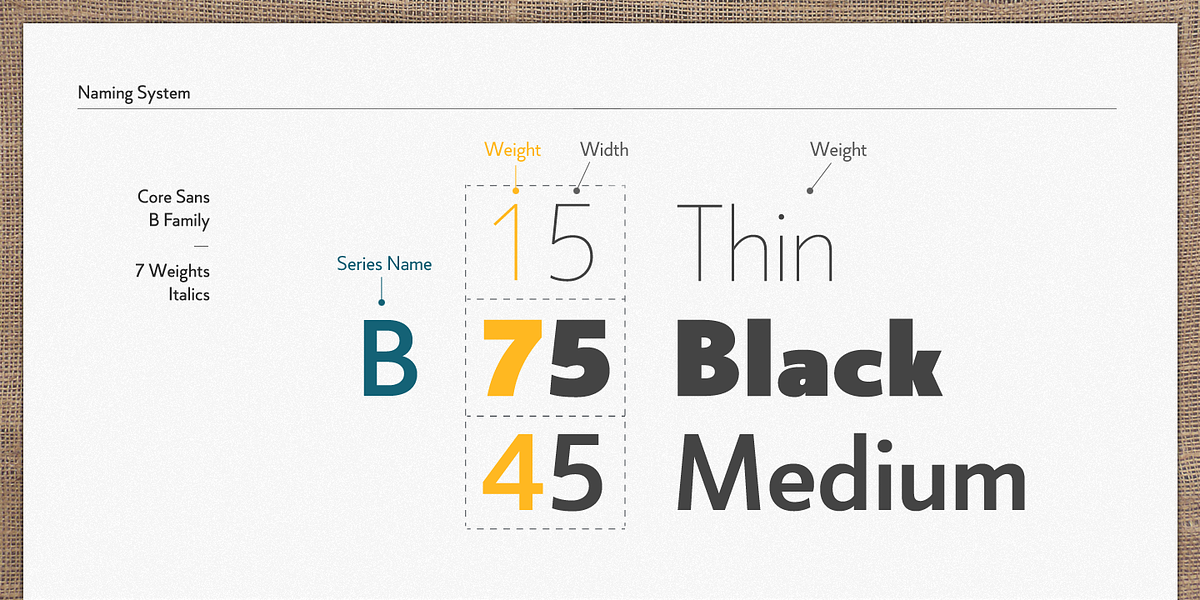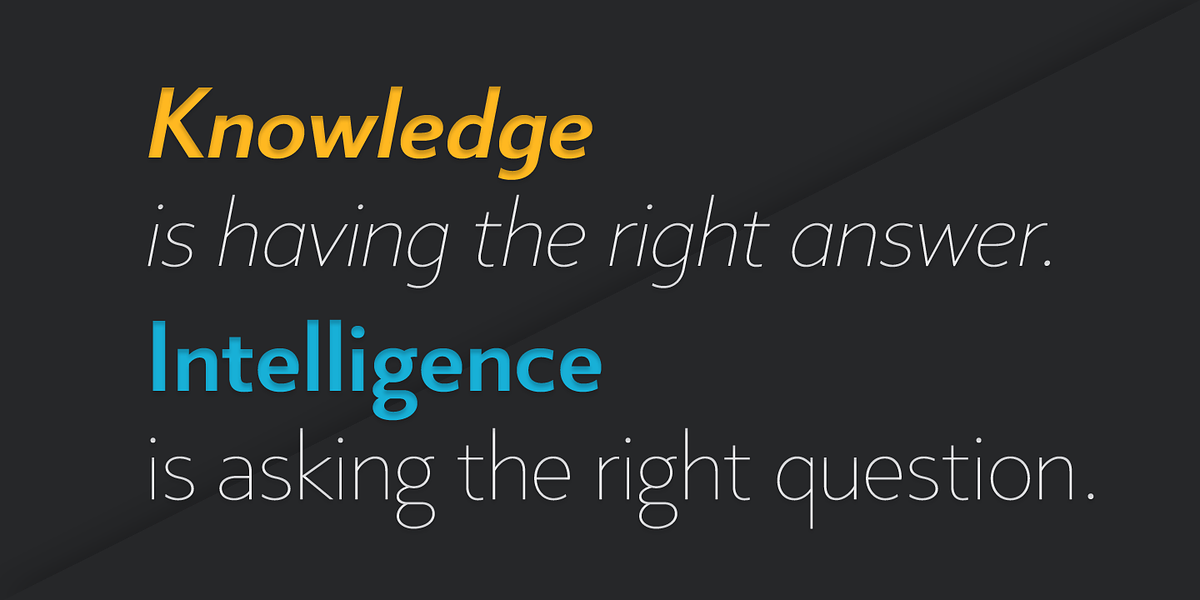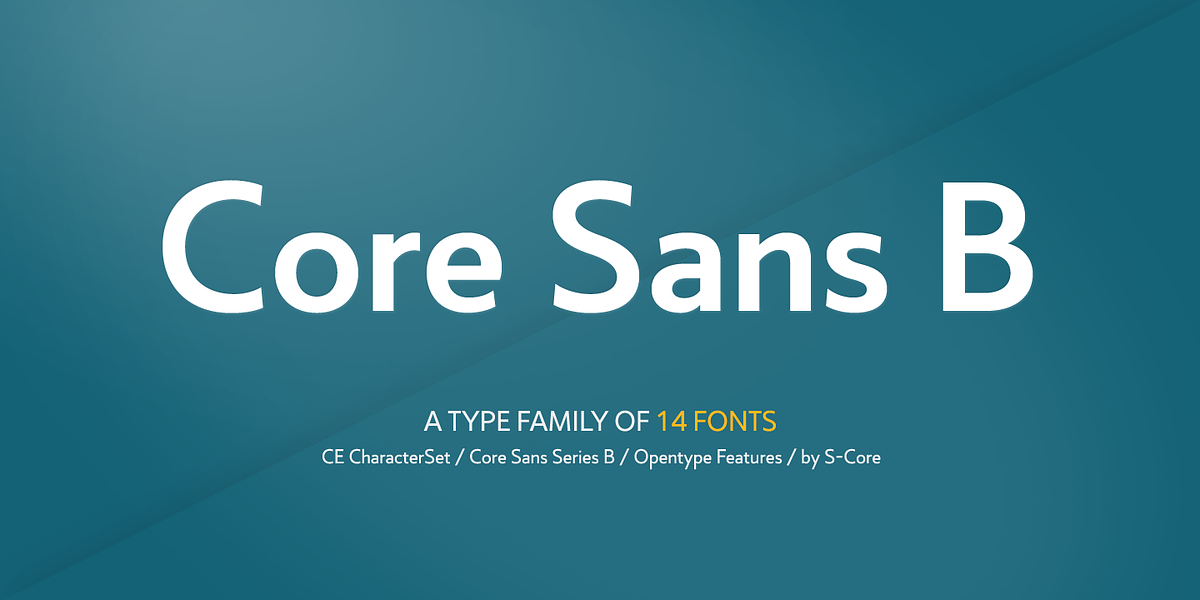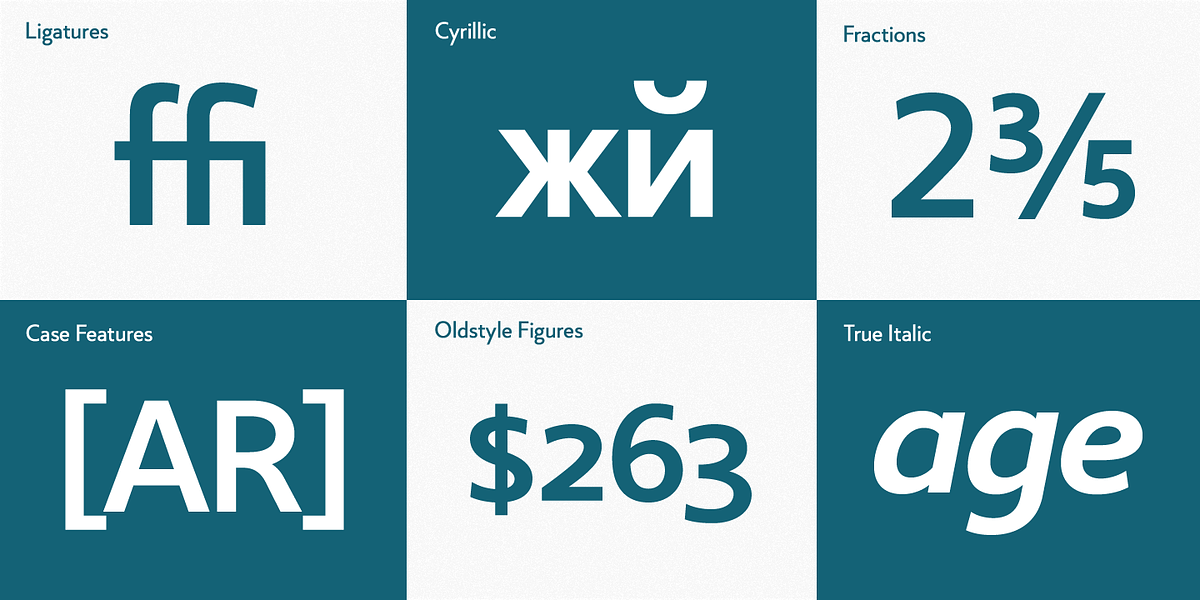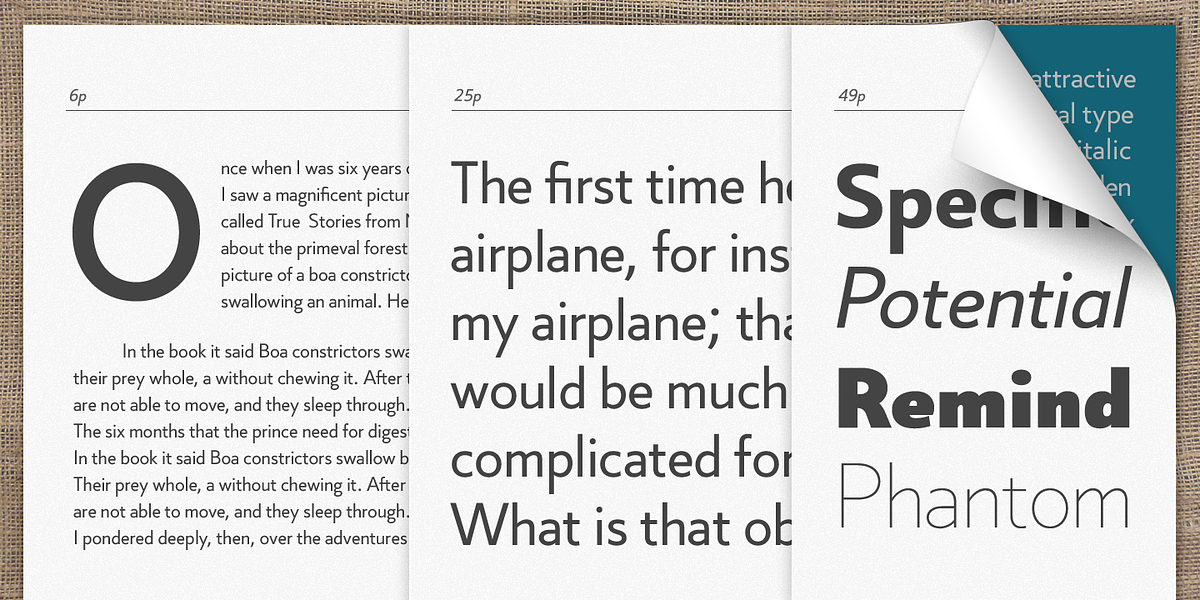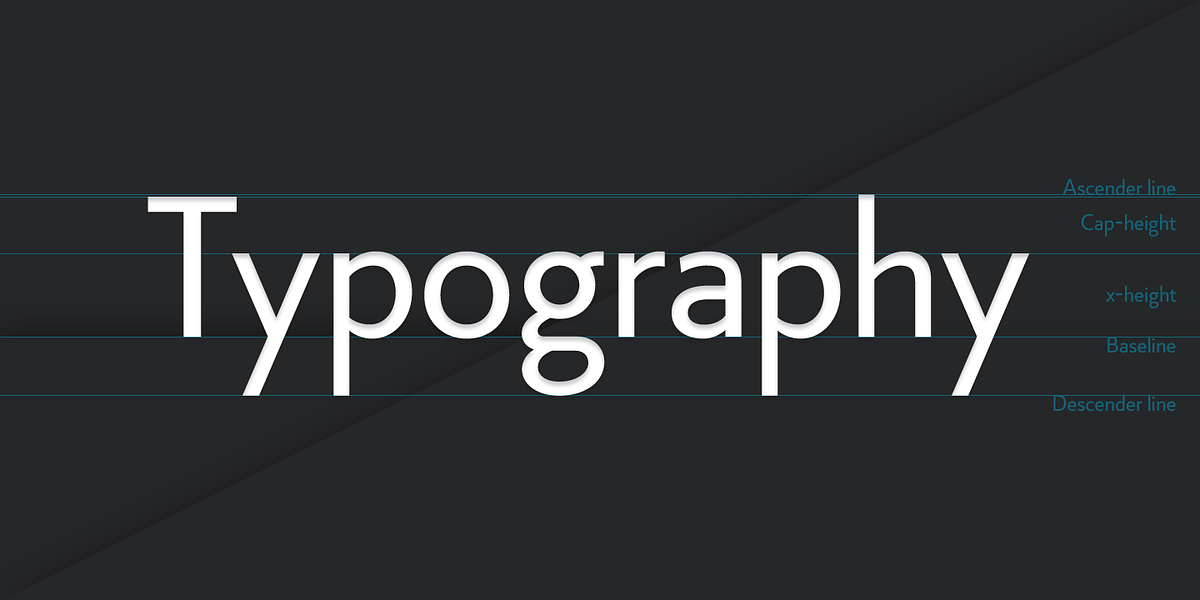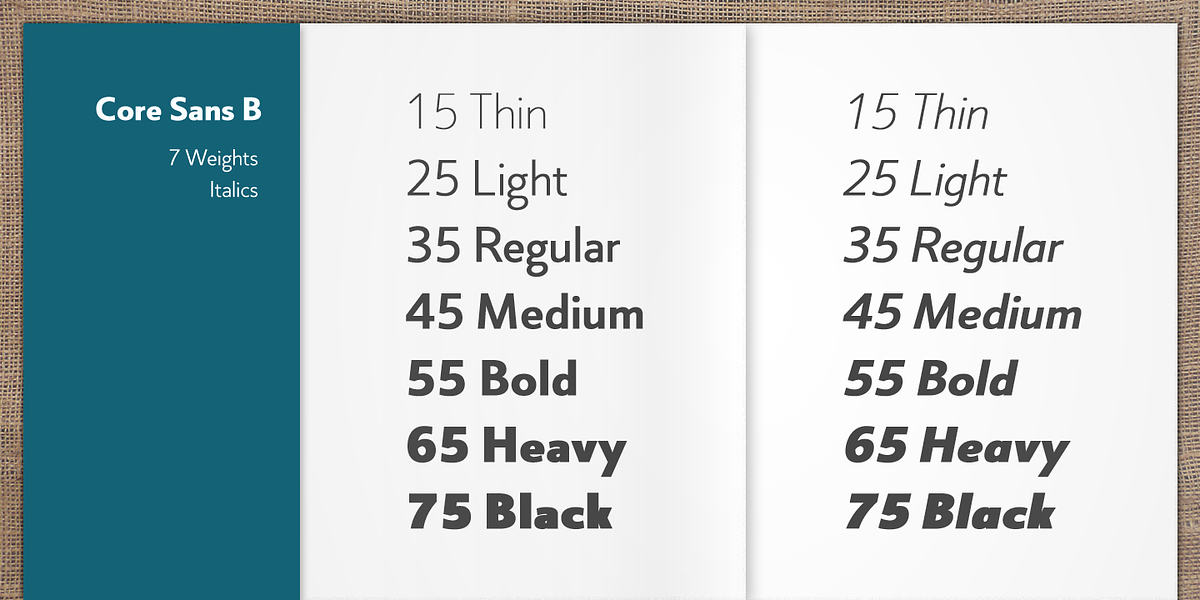
Core Sans B
Core Sans B is a geometric sans-serif font family designed for readability. It features a distinct structure with a small x-height and noticeably large ascenders and descenders. These characteristics contribute to its elegance and legibility, even at smaller sizes. The open counters and distinctive shapes further enhance its clarity. Core Sans B comes in seven weights (Thin to Black) with italic options for each, making it versatile for various applications. It supports a wide range of characters including Basic Latin, Cyrillic, Central European, Turkish, and Baltic alphabets.